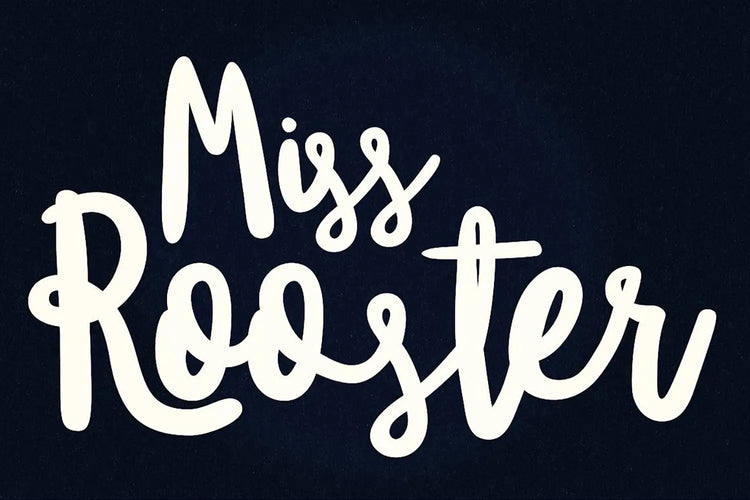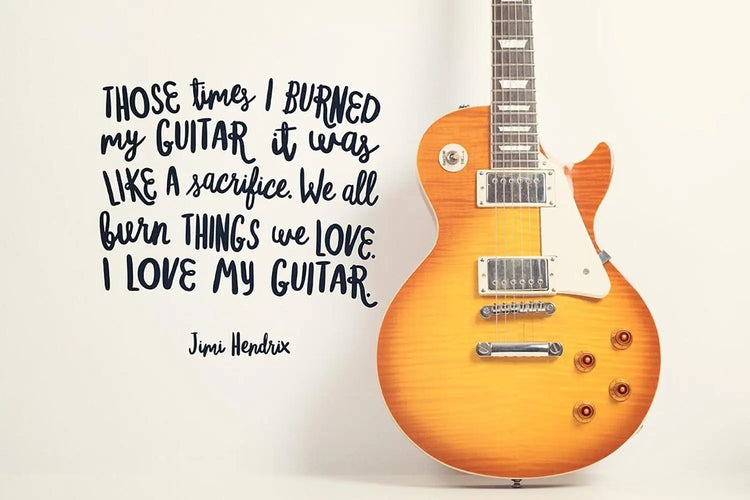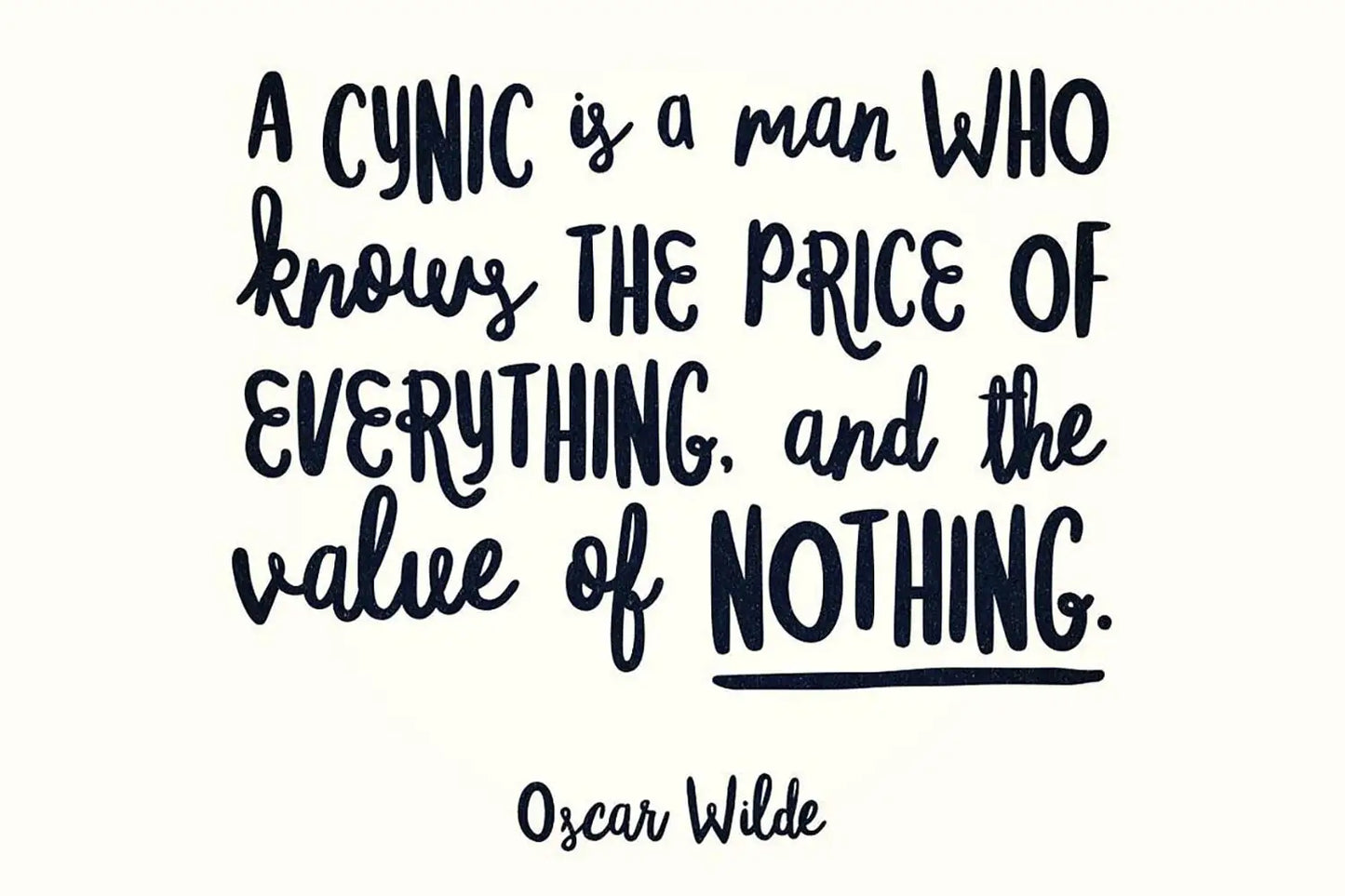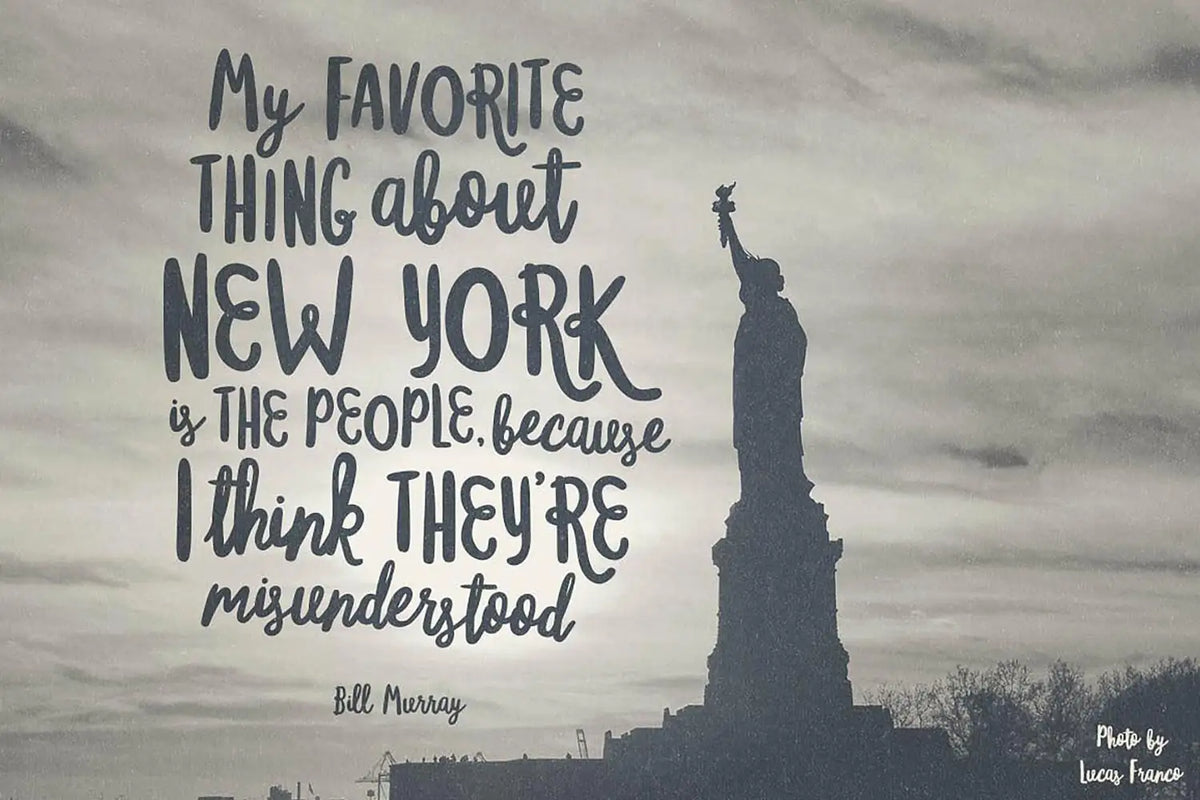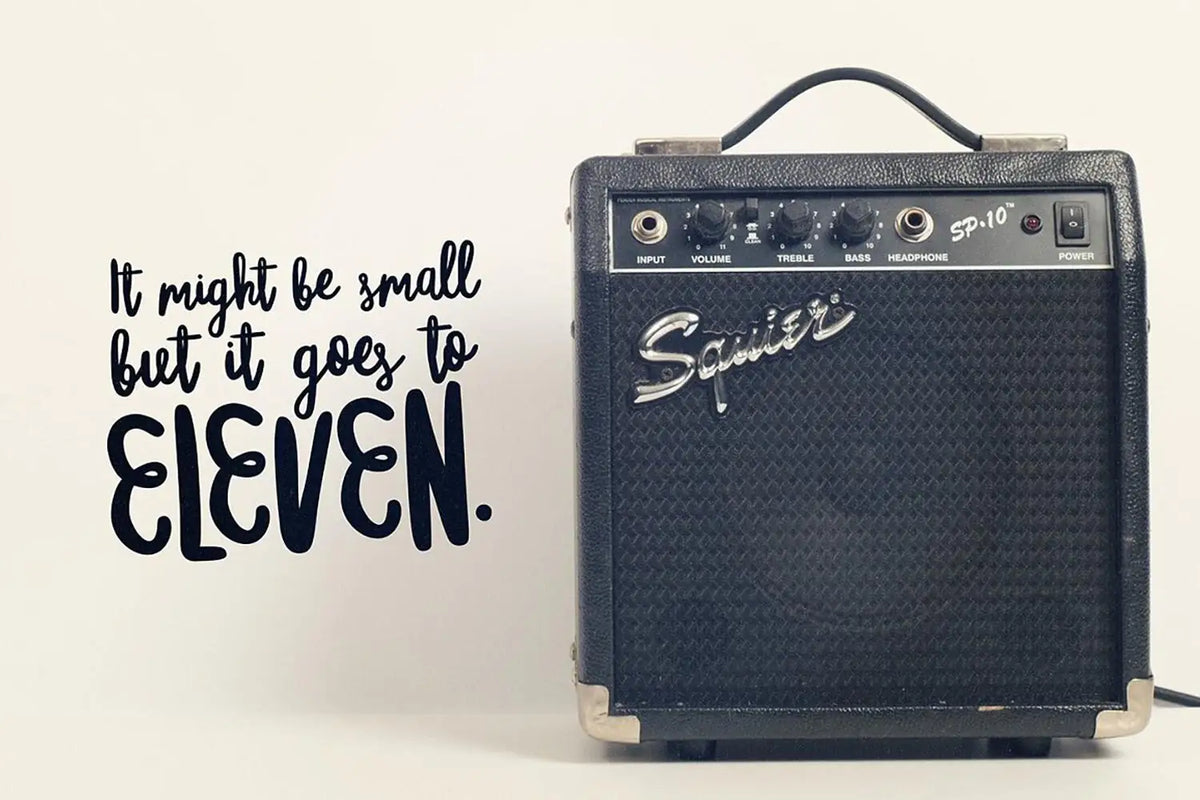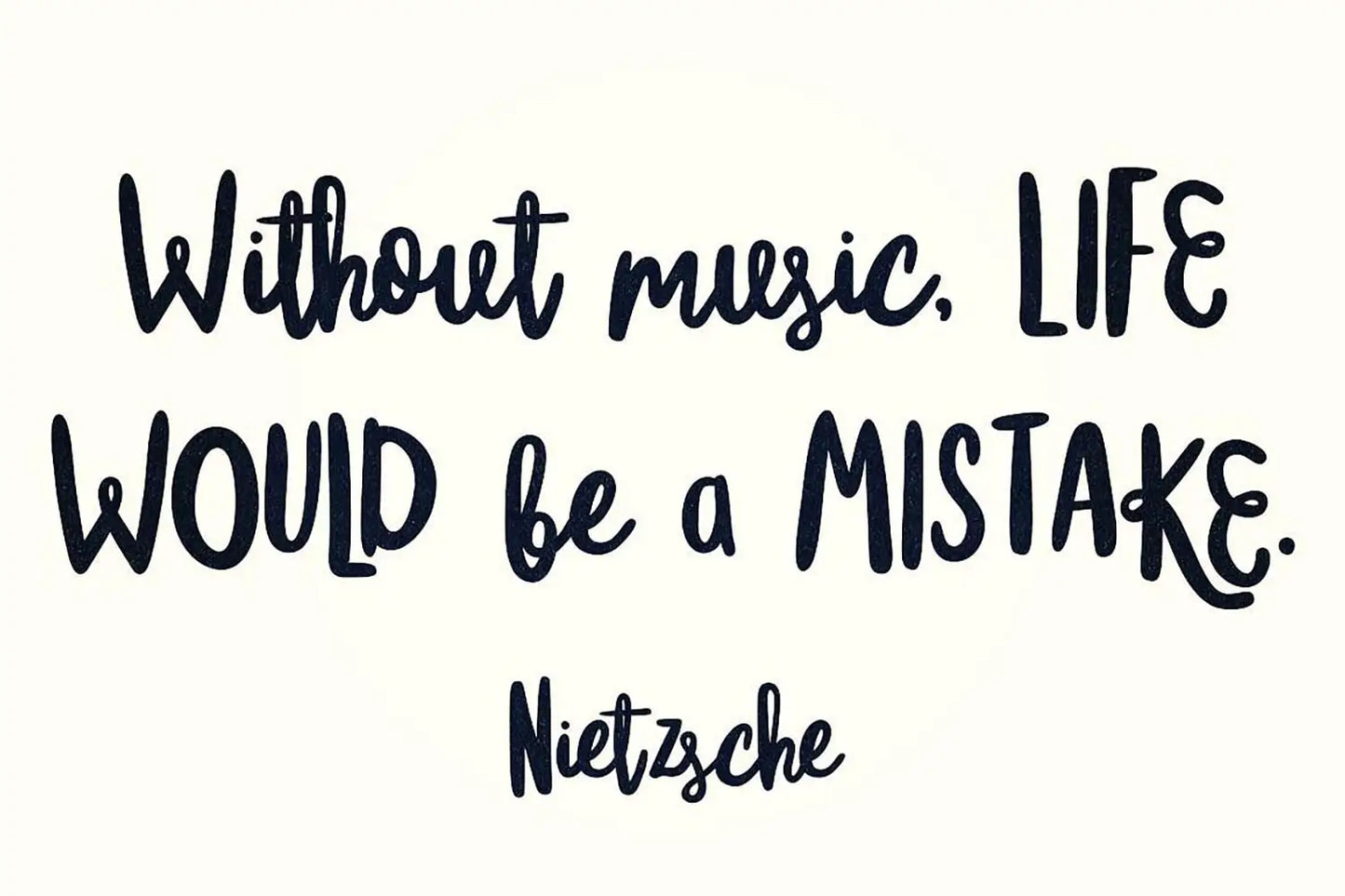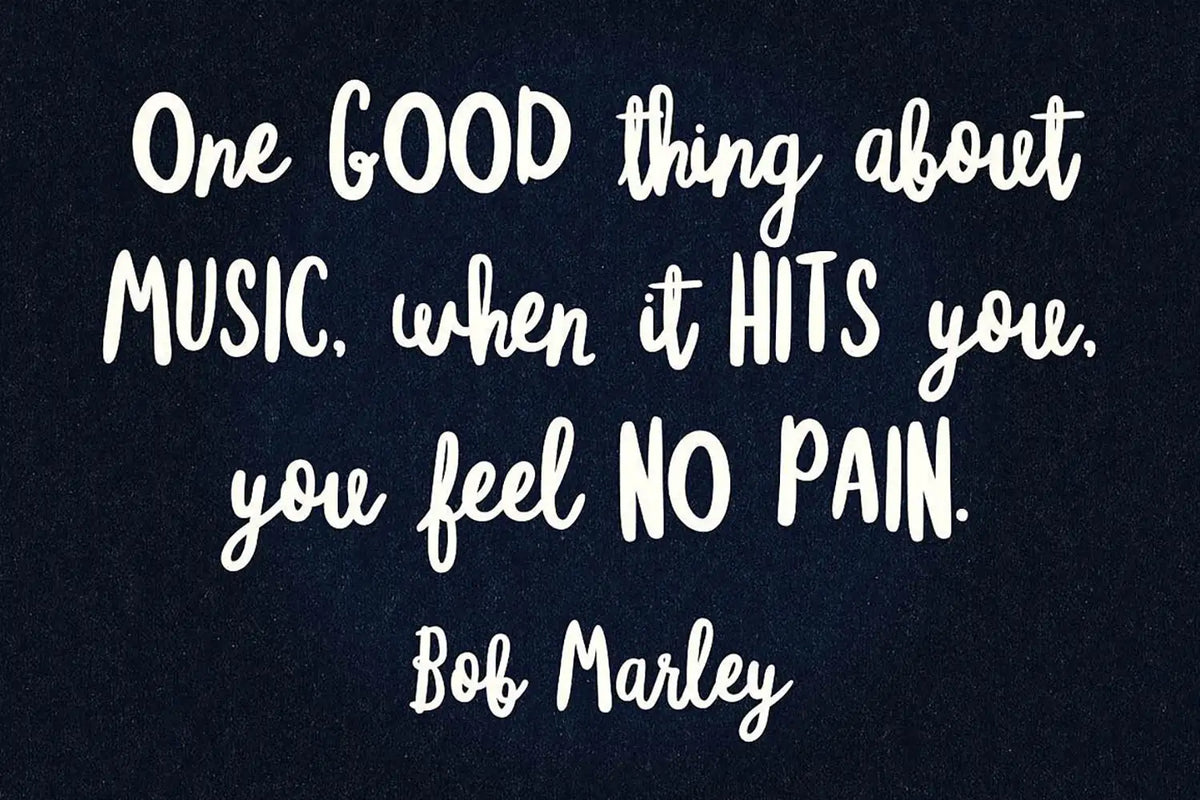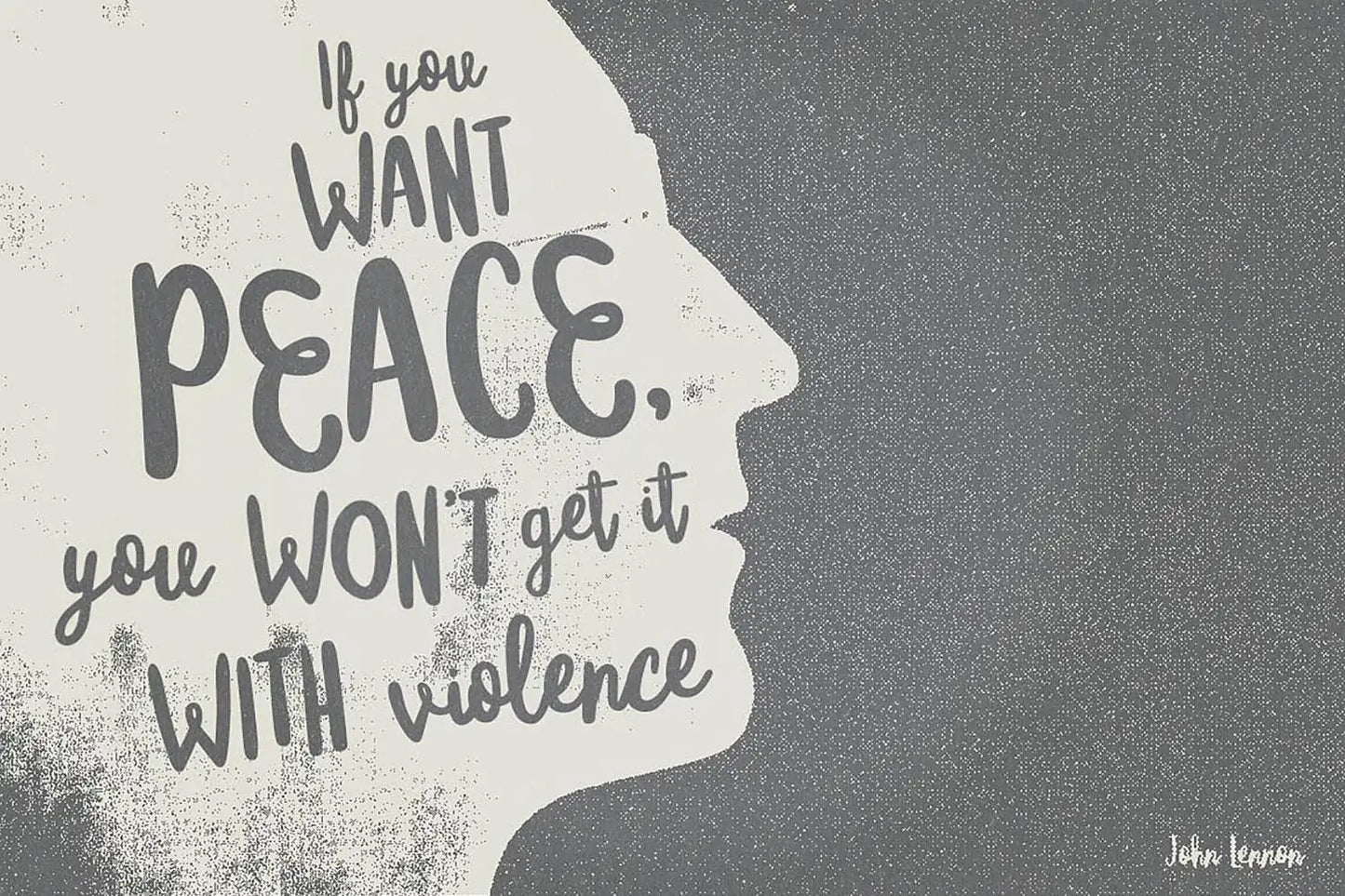
Miss Rooster — Handmade Script Font
About Miss Rooster
So, let me introduce you to Miss Rooster font (formerly known as Mister Rooster). I whipped it up using my trusty graphics tablet and Illustrator. It's one of those script fonts that has that genuine cursive vibe.
Now, I'll admit, it's not as intricate as a fancy pen and ink masterpiece, but it's got that artsy calligraphy charm.
And hey, the paths are simpler, so working with it is much quicker.
What gives it that extra quirkiness is how the letters casually hang around the Baseline. Some of them are like, "Baseline? Nah, not today." And don't even get me started on the uppercase letters – they've got their groove going. Mix them with some sentence case, and you've got yourself a playful, offbeat style.
Miss Rooster font usage
Despite what my moody mockups might suggest, Miss Rooster font is all about playful vibes. It's perfect for projects that need that personal, handmade touch. Think wedding invites, posters, or packaging – it plays well with different design styles.
It's got loads of ligatures to make sure those letters cosy up just right. Plus, a bunch of initial and terminal forms. So, you can fire up those OpenType features in your design software and tweak them to your heart's content.
If Miss Rooster font were a celebrity
If the Miss Rooster font were a celebrity, it would be the charming Emma Stone. Just like Emma Stone's versatile acting skills that can seamlessly transition between comedy and drama, Miss Rooster font effortlessly blends elegance with a playful, handwritten style.